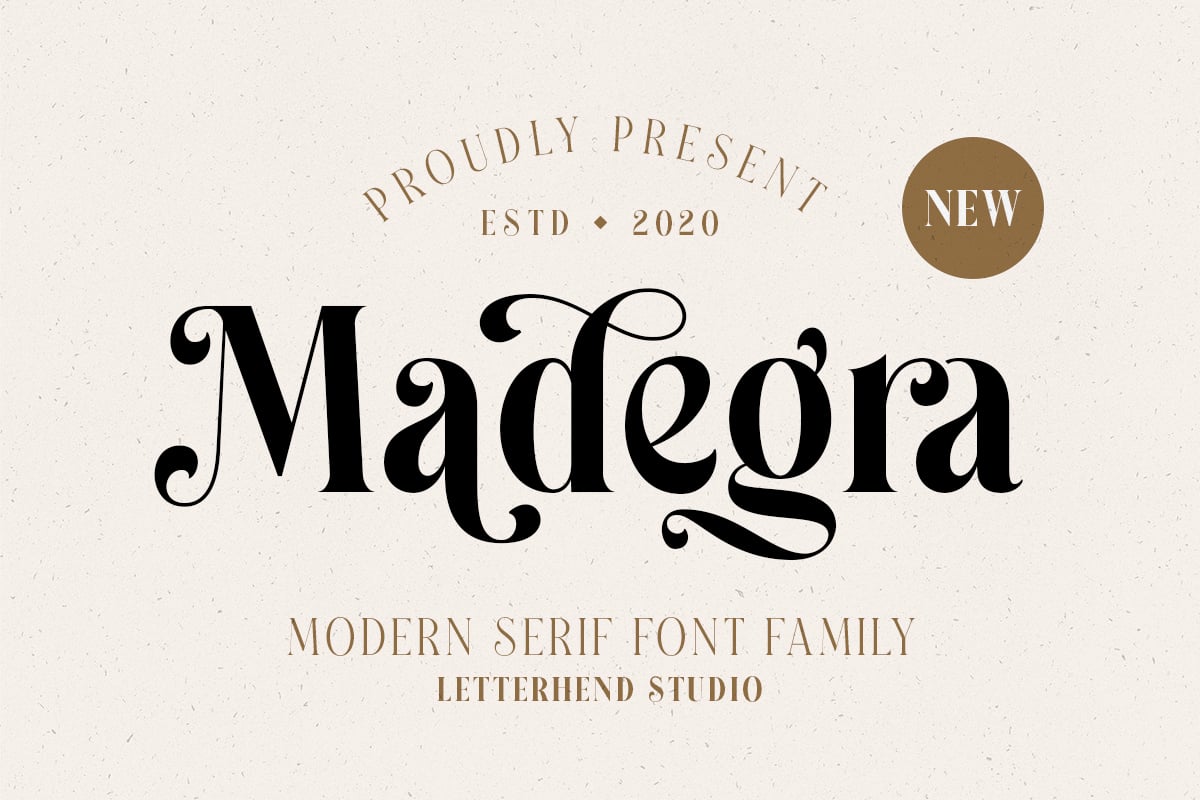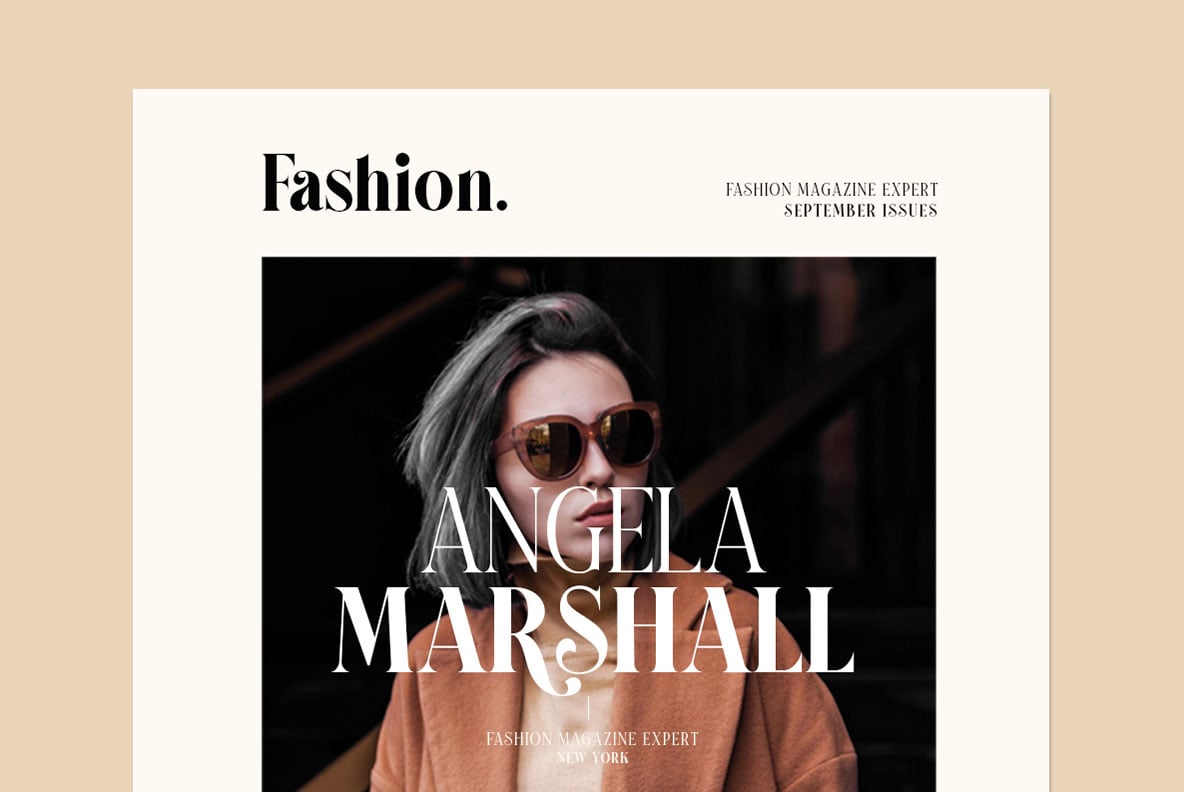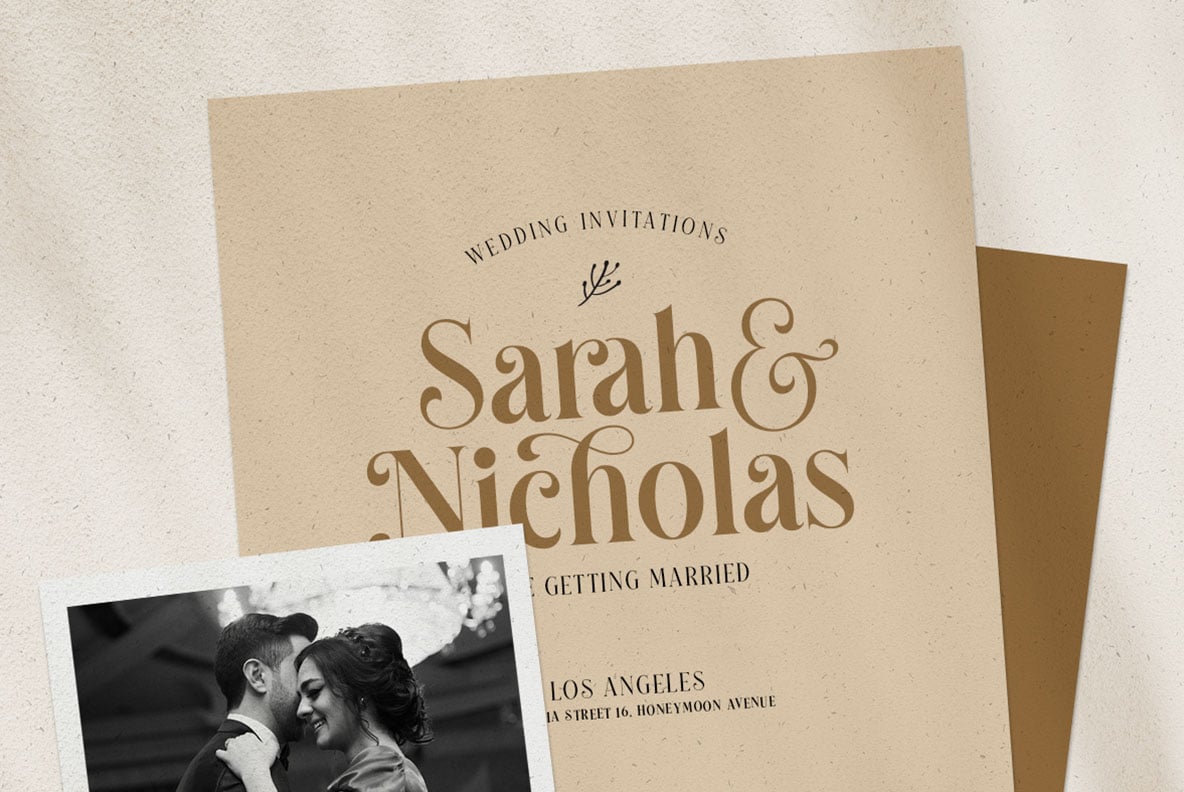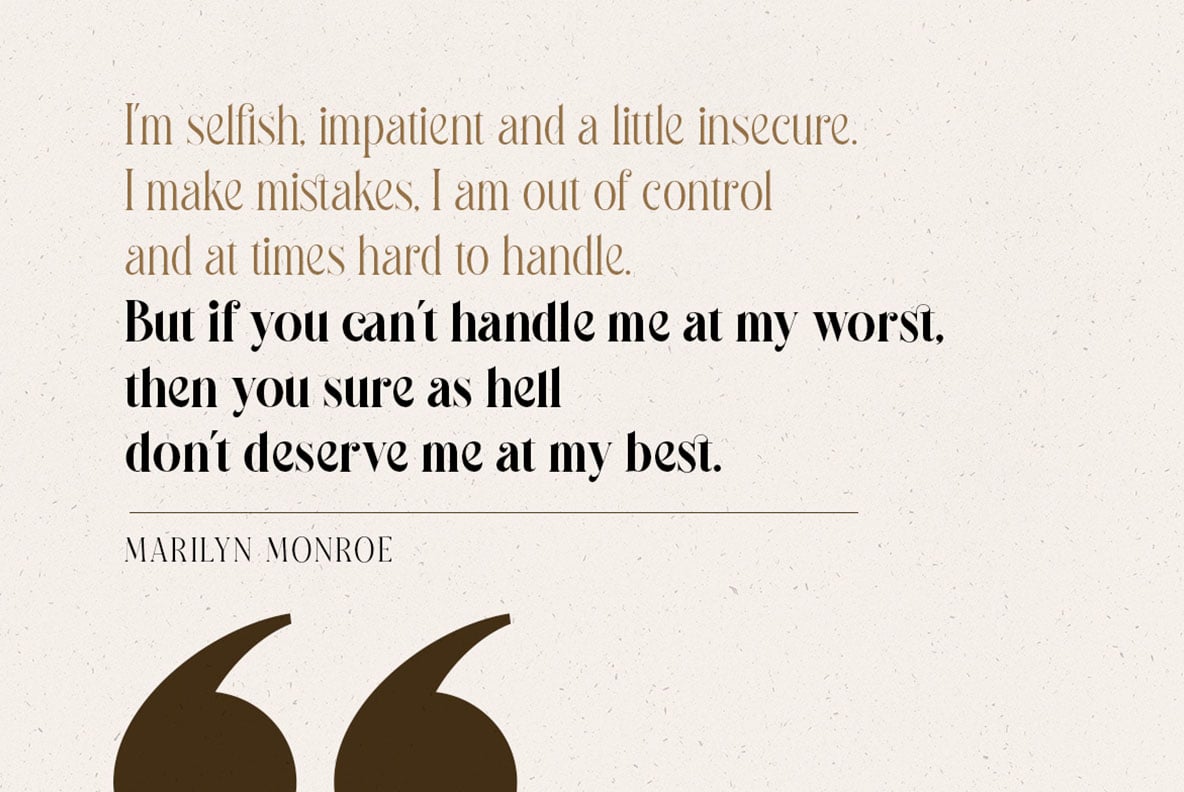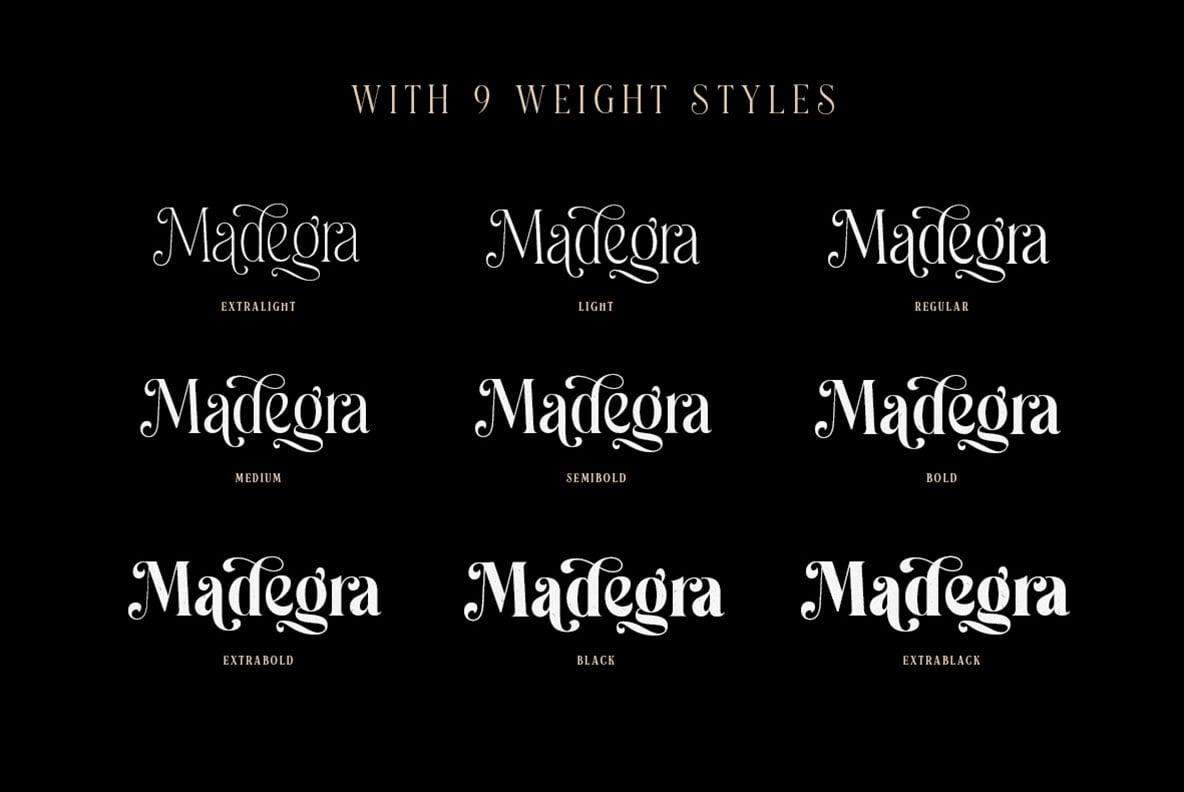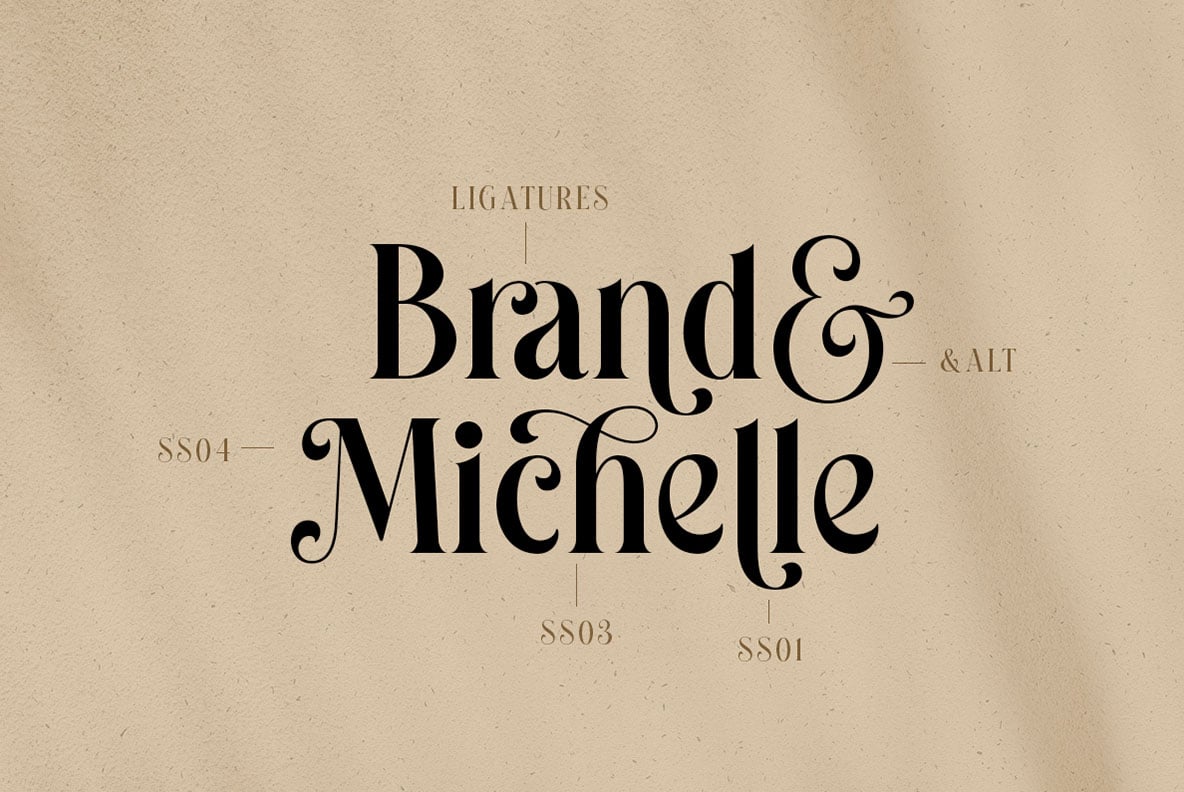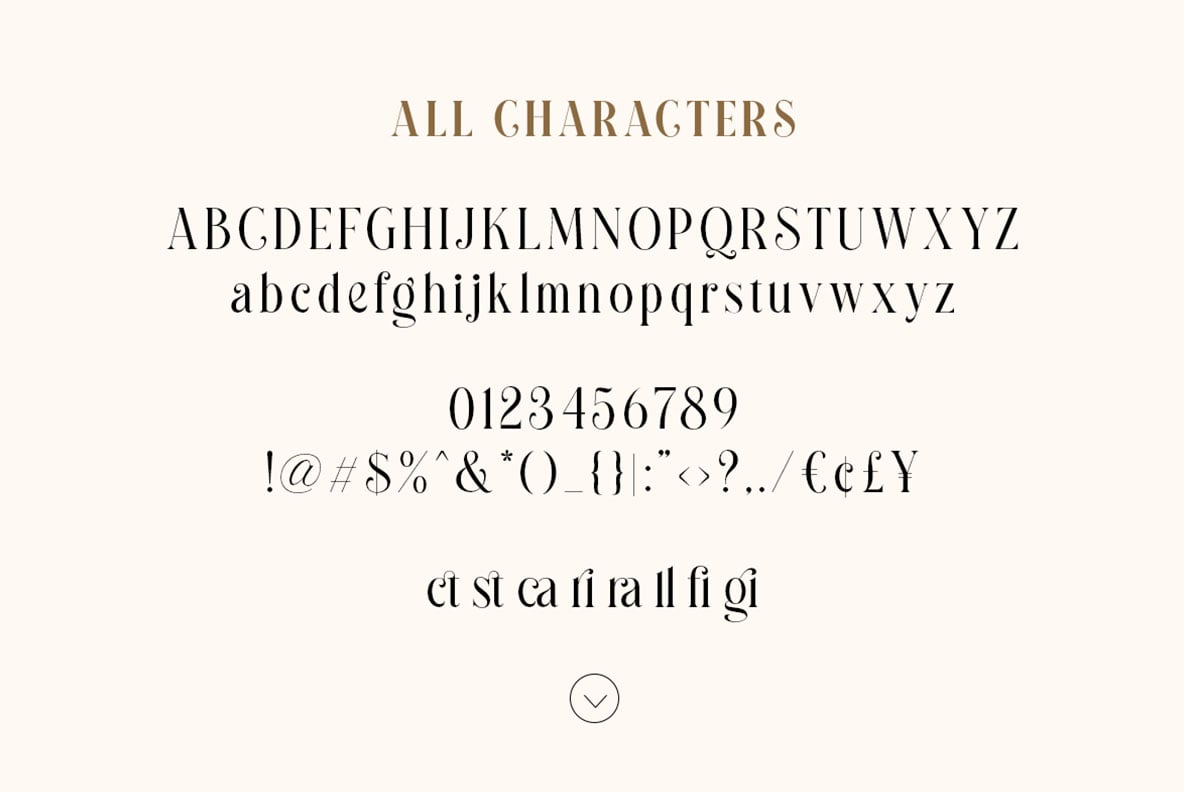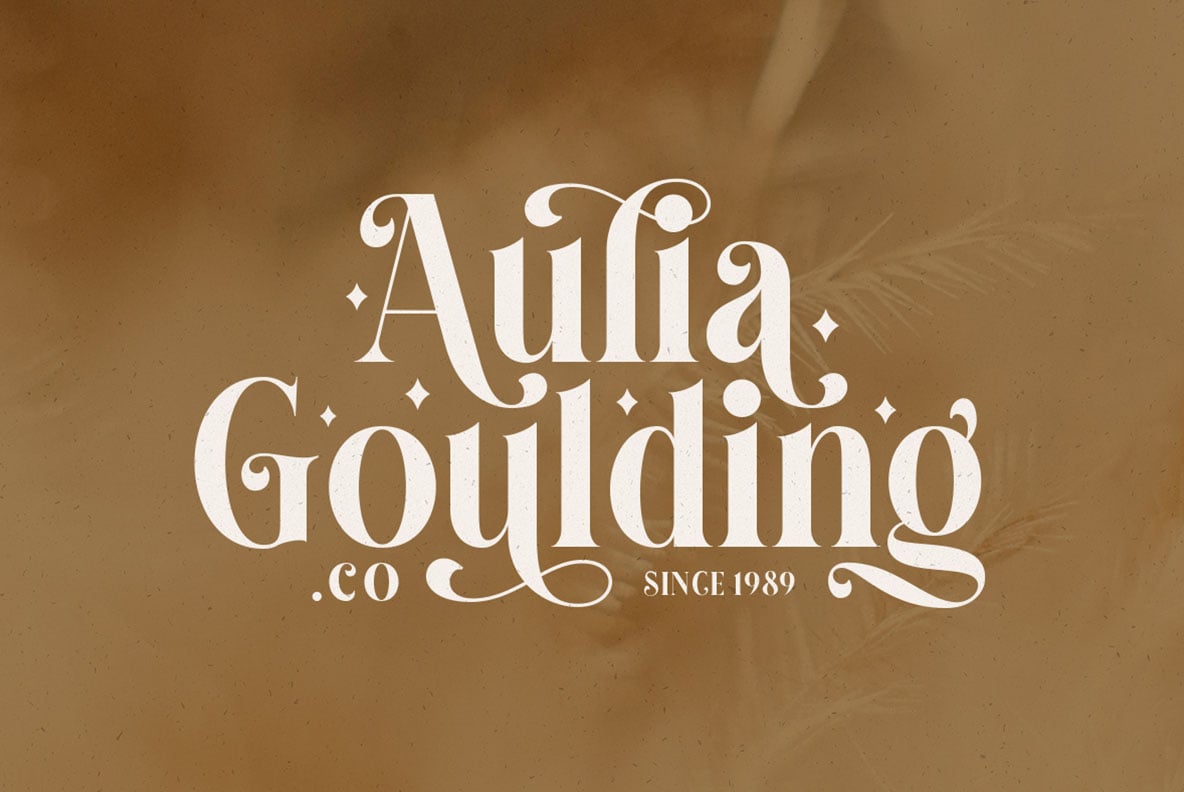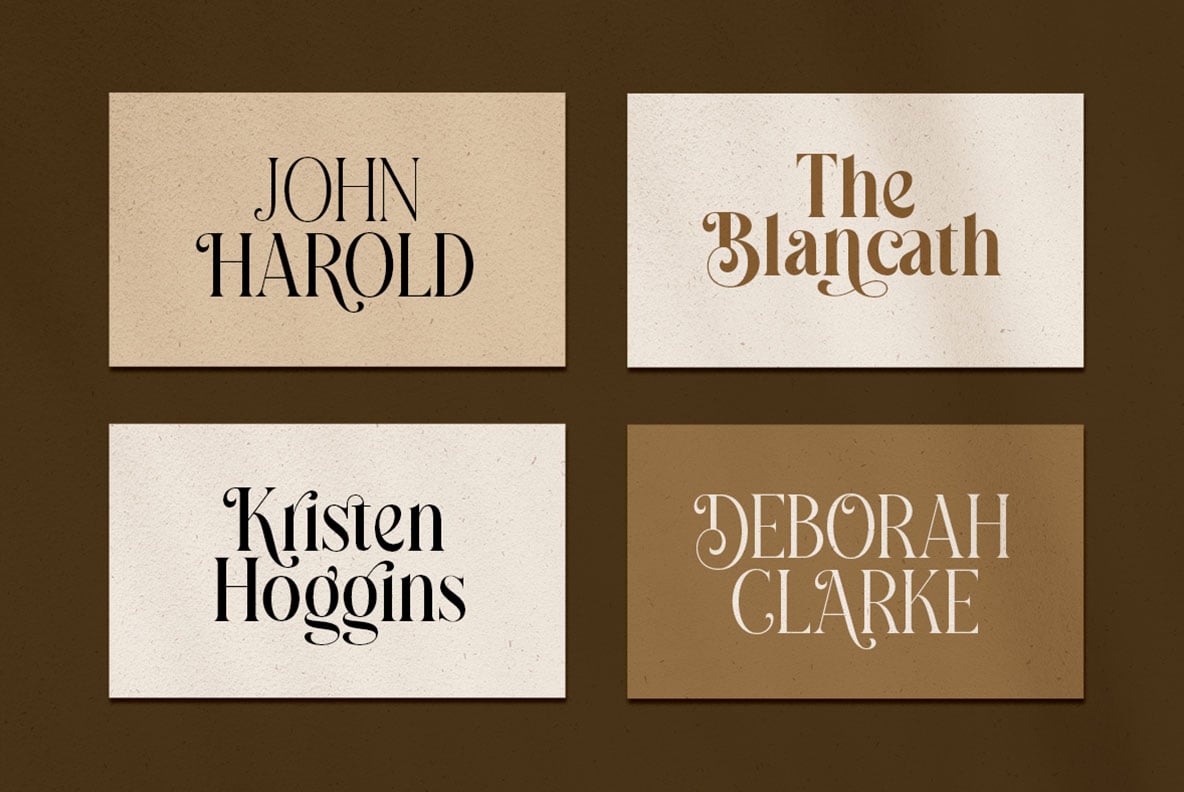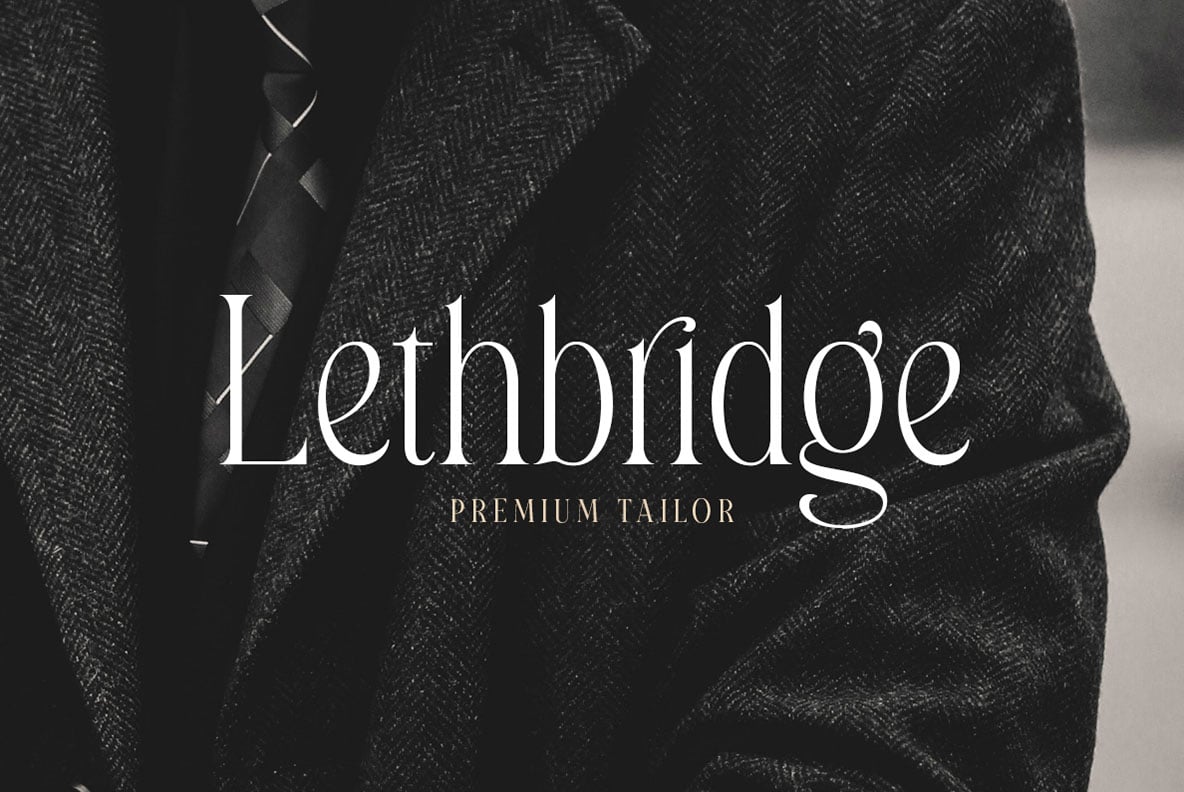
Madegra Serif (9 Weight Font Styles)
Introducing, Madegra, An Elegant Serif. This typeface has many alternates with swashes that can make your lettering / logotype become more interesting. The clean and neat of a serif combined with the swirl swashes makes this font even more unique. Especially since this family has 9 weight styles which you can choose according your needs!
This font perfectly made to be applied especially in logo, and the other various formal forms such as invitations, labels, logos, magazines, books, greeting / wedding cards, packaging, fashion, make up, stationery, novels, labels or any type of advertising purpose.
- uppercase & lowercase
- numbers and punctuation
- multilingual
- ligatures
- alternates
- swashes
- 9 Weight Styles